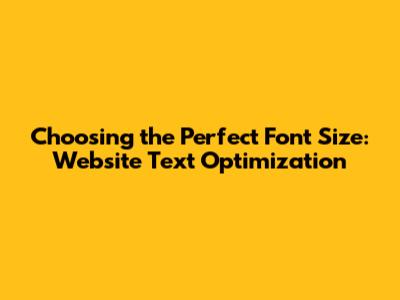
Pixels (px): Pixels are the most straightforward unit. They represent a fixed size on the screen. If you set your font size to 16px, it will always be 16 pixels high, no matter the device or browser. Pixels are easy to understand and work with, which makes them a great starting point, especially for beginners. However, pixels are not responsive. This means that a font size set in pixels will look the same on a desktop computer as it does on a smartphone, which can lead to readability issues on smaller screens. This is a crucial aspect to consider, especially in today’s mobile-first world. While they offer consistency, they lack the flexibility needed for a responsive design.
Ems (em): Ems are relative units. They are based on the font size of the parent element. For instance, if the parent element has a font size of 16px, then 1em is equal to 16px. If you set a font size to 1.2em, it would be 1.2 times the size of the parent element (19.2px). Ems offer more flexibility than pixels, allowing you to scale text easily by changing the font size of the parent element. This can be super handy for creating responsive layouts. The downside? They can sometimes be a bit tricky to manage, especially when nested elements have different em values. It can get a bit confusing to calculate the actual font size, so you have to keep track of the hierarchy and how each element relates to its parent.
Rems (rem): Rems are also relative units, but they are based on the font size of the root HTML element (usually the
<html>tag). This makes rems more predictable and easier to work with than ems. If the root font size is 16px, then 1rem is equal to 16px. Unlike ems, rem values don’t cascade. This means that a font size set in rems will always be relative to the root element, regardless of any parent element’s font size. This makes it simpler to control the overall scale of your website’s typography. Rems are generally the preferred unit for setting font sizes because they offer a good balance of flexibility and control. They make it easier to ensure consistent scaling across your website while still allowing for easy adjustments. When using rems, you can change the base font size (usually set in the<html>tag) to scale everything uniformly. -
Body Text: For the main body text (the bulk of your content), a font size between 16px and 20px is generally recommended. This range is usually comfortable for most users on most devices. If you are using ems or rems, aim for around 1rem to 1.25rem as a starting point. This size provides a good balance between readability and efficient use of screen space. Remember to consider your target audience. If you're designing for an older demographic, you might consider slightly larger font sizes to improve readability. Ensure that the text size is large enough to be easily read without requiring users to zoom in constantly.
Headings (H1-H6): Headings should be significantly larger than your body text to create a clear visual hierarchy and guide the reader's eye. Here’s a rough guideline:
- H1: 2.5rem to 3rem (or larger, depending on your design).
- H2: 2rem to 2.5rem.
- H3: 1.5rem to 2rem.
- H4: 1.25rem to 1.75rem.
- H5: 1rem to 1.5rem.
- H6: 0.875rem to 1.25rem. The sizes should gradually decrease, creating a visual distinction that helps readers understand the structure of the content. Headings are crucial for SEO; they help structure your content, making it easier for search engines to understand your page’s topics. Make sure your headings are descriptive and accurately reflect the content that follows.
Navigation and Menu Items: Navigation menus and menu items are typically smaller than body text to avoid clutter. A font size of 14px to 16px (or 0.875rem to 1rem) is usually sufficient. It should be large enough to read easily but not so large that it dominates the visual space. Keep the design clean and straightforward, ensuring that the menu items are easily clickable on both desktop and mobile devices. Use clear, concise labels and high contrast to make the navigation user-friendly.
Captions and Footnotes: Captions and footnotes can be smaller than the body text, typically around 12px to 14px (or 0.75rem to 0.875rem). This indicates that they are supporting content rather than main content, but they still need to be legible. Maintaining clear distinctions in font size helps differentiate between the main body of text and supplementary information. This keeps your website clean and easy to navigate.
Mobile Considerations: When designing for mobile devices, use a responsive design approach. Ensure your font sizes scale appropriately to accommodate smaller screens. You can use media queries in your CSS to adjust font sizes based on the screen size. For example, you might increase the body text size to 18px or 20px on smaller screens to improve readability. Remember to test your website on various devices to make sure the text looks good.
Choose the Right Font: The font you pick has a huge impact on readability. Some fonts are naturally easier to read than others, especially at smaller sizes. Sans-serif fonts like Arial, Helvetica, and Open Sans are generally considered more readable on screens. Serif fonts, such as Times New Roman and Georgia, can also work well, especially for body text. However, make sure whatever font you choose complements your design and overall brand. Test the font across different devices and browsers to ensure consistent rendering.
Line Height and Spacing: Line height (the space between lines of text) and letter spacing are critical. Make sure your line height is at least 1.5 times the font size for body text. Too little space and your text will feel cramped and hard to read. Adjust the letter spacing to ensure the words aren’t too close together. This can greatly enhance readability. Experiment with these settings to find what looks and feels right for your design.